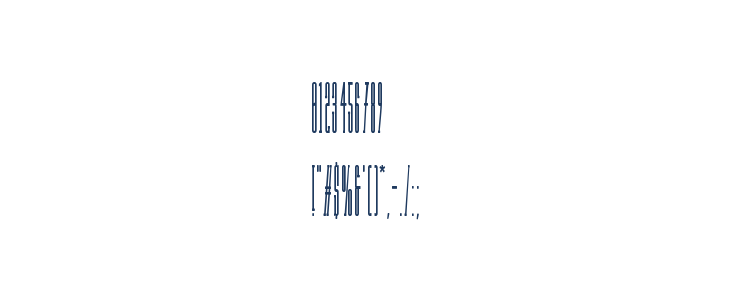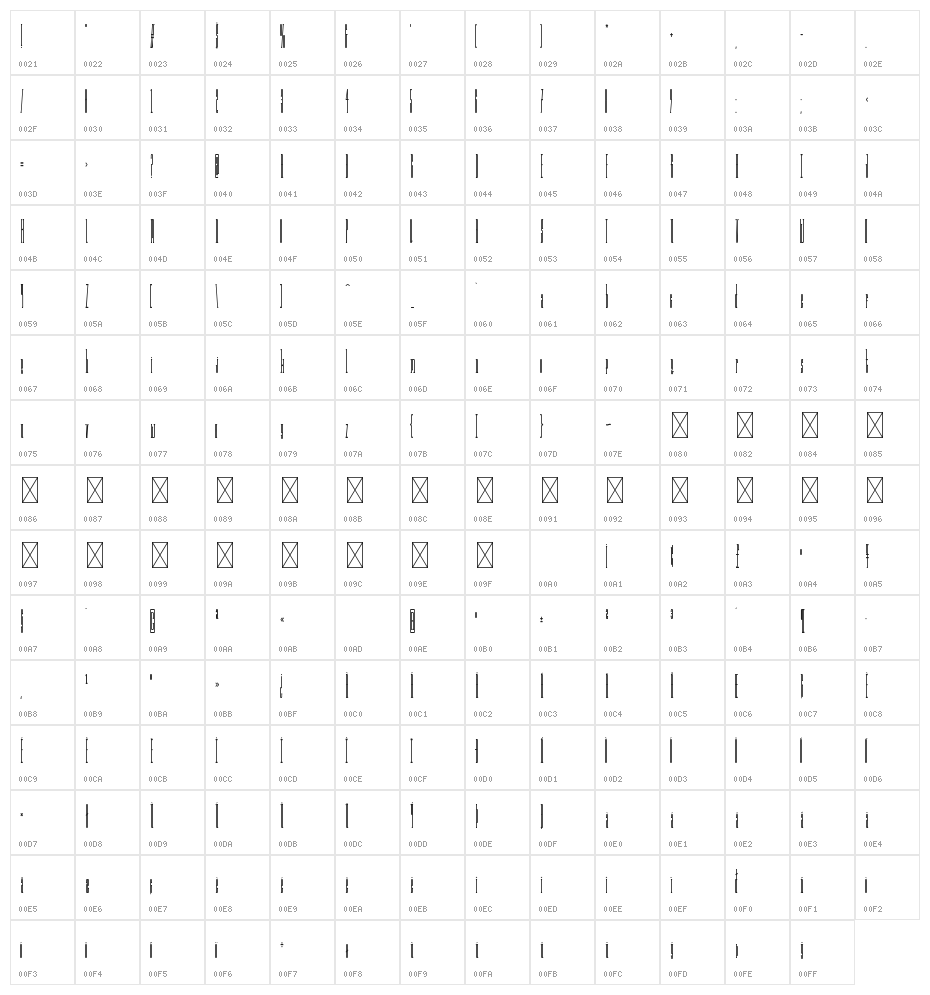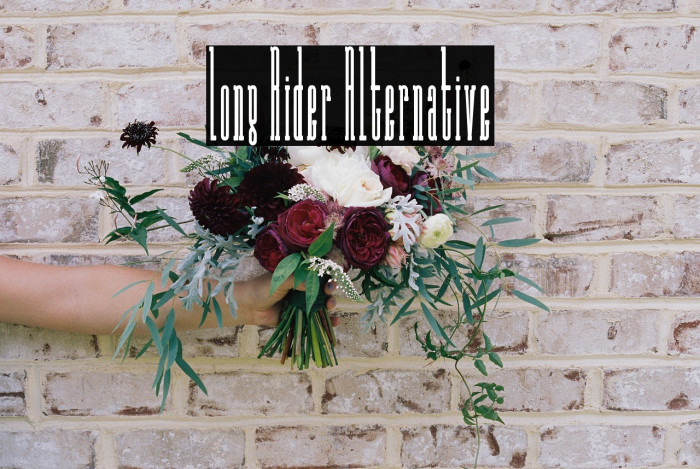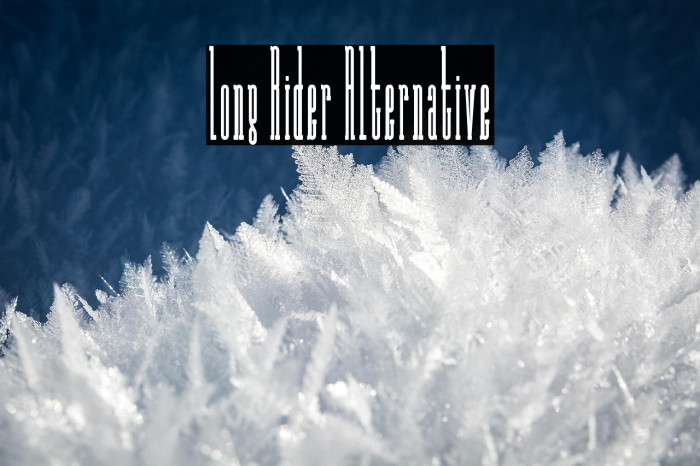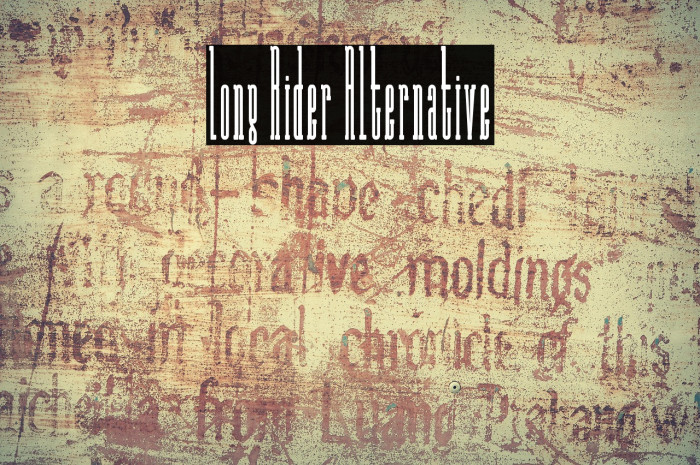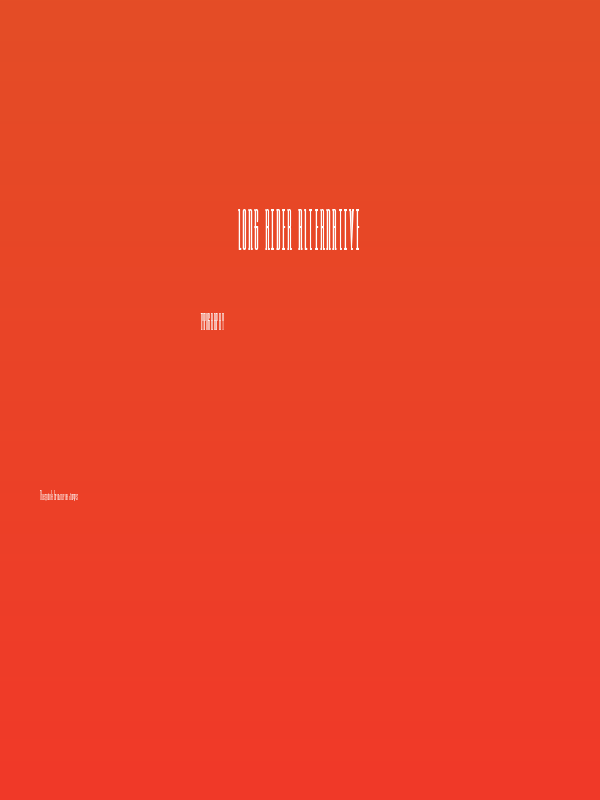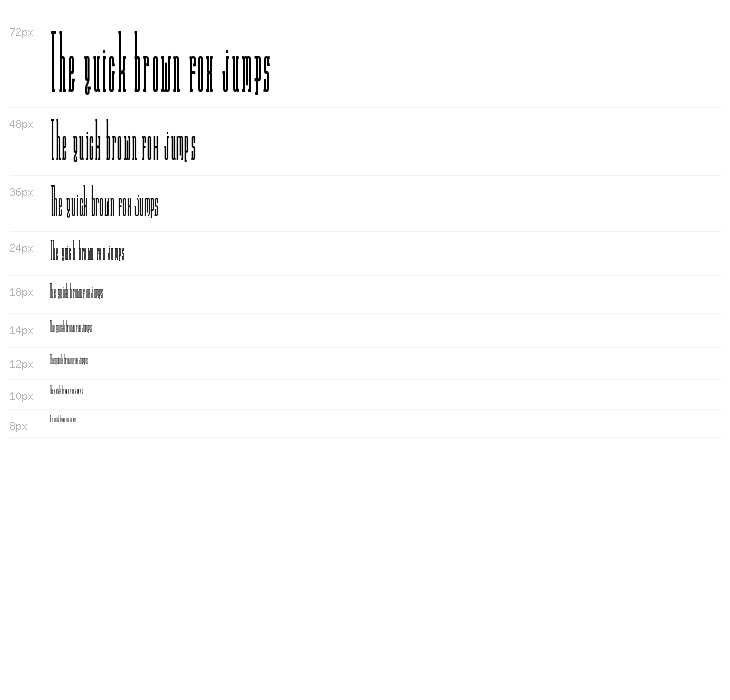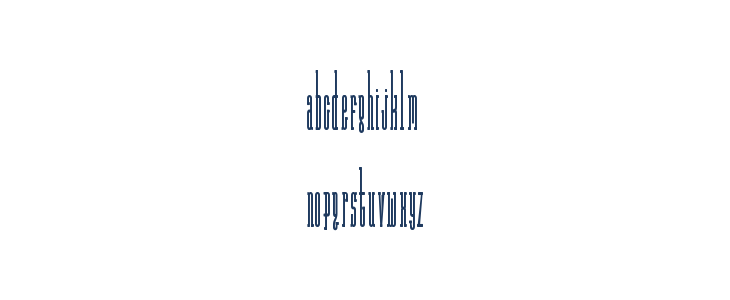
Long Rider Alternative Font
Long Rider Alternative Description
This font features a tall and narrow design, characterized by its elongated letterforms and high vertical emphasis. The strokes are consistent in width, giving it a monoline appearance, while the serifs are minimal and sharp, adding a touch of elegance. The overall aesthetic is reminiscent of vintage western typography, making it suitable for projects that require a classic yet bold look. The characters are tightly spaced, enhancing the condensed nature of the font, which is ideal for creating impactful headlines or titles. The numbers and special characters maintain the same stylistic elements, ensuring uniformity across all text elements.
| Width | Condensed |
| Overall Style | Vintage |
| Proposed Projects | Ideal for posters, signage, branding, and any design needing a vintage western flair. |